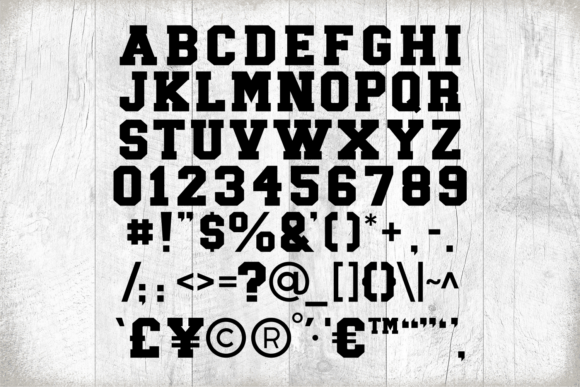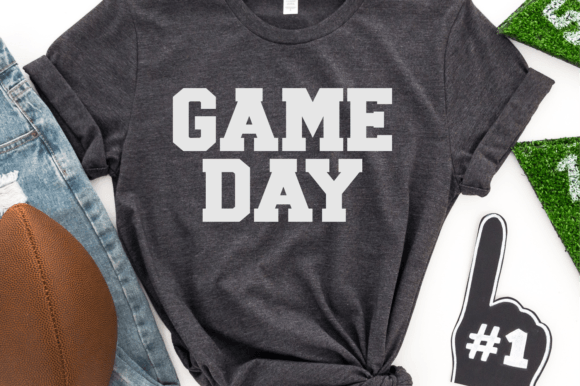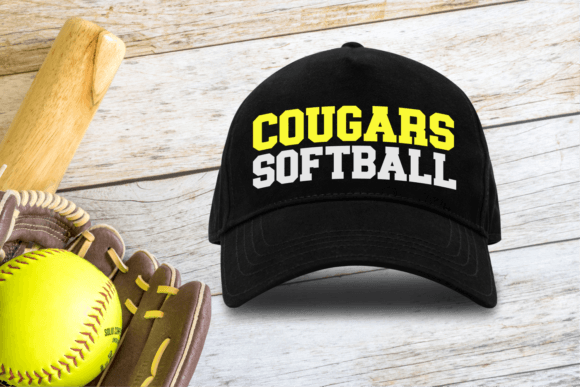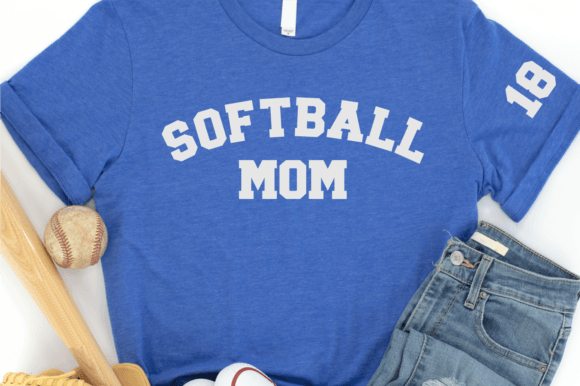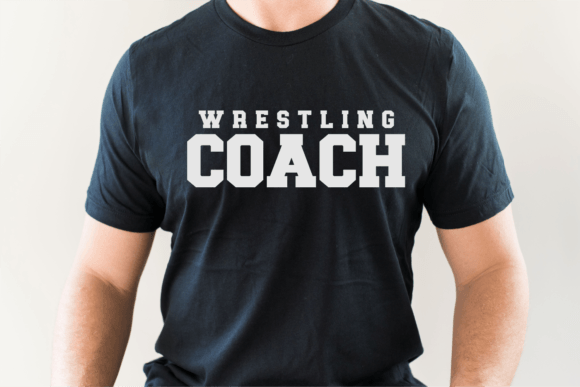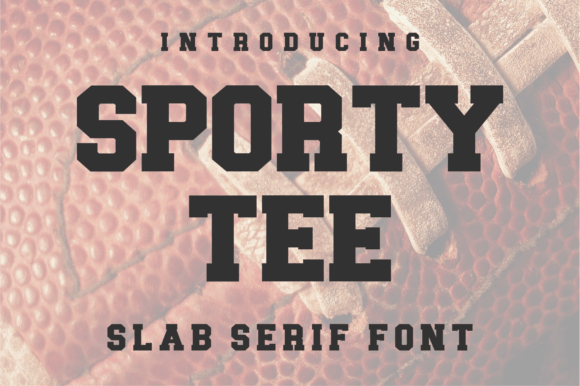
JP Sporty Tee
Renin: A Bold, Vintage-Styled Western Slab Serif Font
Renin is a distinctive slab serif font that combines boldness with a vintage, western-inspired look. This versatile typeface adds a retro touch to various design projects.
Key Features of Renin
• Bold Design: Features strong, eye-catching letterforms.
• Vintage Styling: Evokes a sense of nostalgia.
• Western Look: Offers a rugged, frontier-inspired appearance.
• Slab Serif Structure: Includes thick, rectangular serifs.
• Versatile Application: Suitable for various design needs.
Ideal Uses for Renin
Renin works particularly well for:
• Product labels with a vintage feel
• Branding for businesses with a rustic theme
• Advertising campaigns aiming for a retro aesthetic
• Poster designs for events with a nostalgic touch
• Packaging design for products with an authentic look
When using Renin in your designs, consider these tips:
• Use for headlines to maximize its bold impact
• Experiment with sizes to highlight unique details
• Pair with simpler fonts for body text to create contrast
• Apply across various projects needing a retro touch
Renin is an excellent choice for designers seeking a bold, vintage-styled western slab serif font. It stands out in typography with its retro charm. Whether you’re working on logo designs for rustic brands or creating vintage-themed advertisements, Renin offers a perfect blend of boldness and nostalgia.
Furthermore, adding Renin to your projects can elevate your designs with its bold, vintage-western style. From eye-catching labels to engaging branding elements, this font creates impactful typography. It appeals to audiences seeking an authentic, retro aesthetic. Additionally, it’s versatile enough for various contexts, from vintage-inspired designs to playful layouts needing a rugged touch.
In conclusion, Renin adapts well to different moods. It can create a mysterious atmosphere with a western twist or aim for a more thoughtful mood in your designs. Its flexibility allows it to work in both rustic projects and contemporary designs needing a bold, retro touch. Lastly, for those wanting to add a touch of the Old West with a modern feel, this font can complement vintage-inspired creations with a unique, western twist.